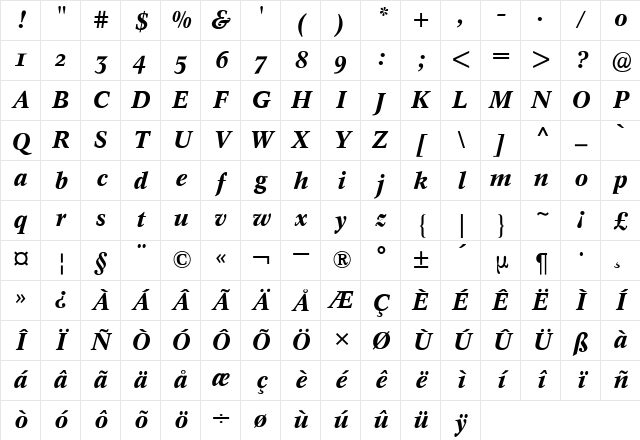
Concorde Expert BQ Italic
Complete Concorde Expert BQ Italic glyph index. Displaying only characters natively supported by Concorde Expert BQ Italic font.
Design Context for Concorde Expert BQ
Concorde Expert BQ is a composed and adaptable typeface that performs quietly and consistently across a wide range of design contexts. The slanted form adds forward momentum and visual energy.
Pro Tip: Use Concorde Expert BQ for emphasis, pull quotes, and subheadings where its slanted energy can add rhythm to the layout.
Who designed the Concorde Expert BQ Italic font?